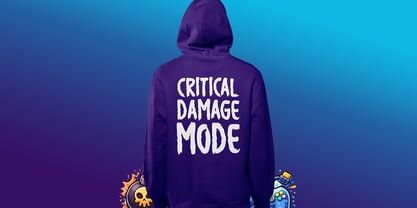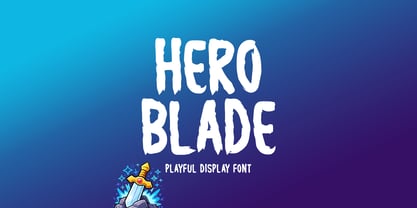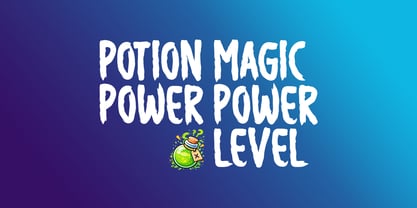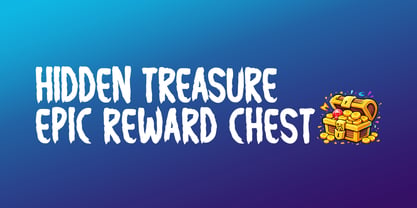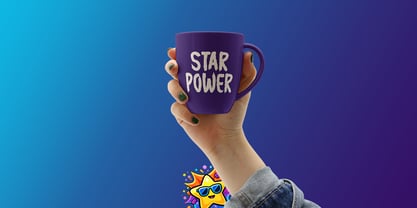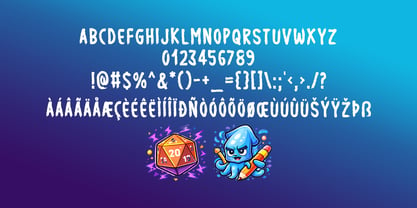
Hero Blade
by Seemly Fonts
The Hero Blade Font Family was designed by Md. Sohail Bhuiyan and published by Seemly Fonts. Hero Blade contains 1 styles. More about this family
Hero Blade is a bold and playful display font inspired by the exciting world of games, fantasy adventures, and heroic quests. Its hand-drawn shapes and energetic strokes create a lively personality that instantly grabs attention. The slightly rough edges and cartoon-style forms give the font a unique gaming vibe, perfect for game titles, posters, kids’ designs, and creative projects.
Designers: Md. Sohail Bhuiyan
Foundry: Seemly Fonts